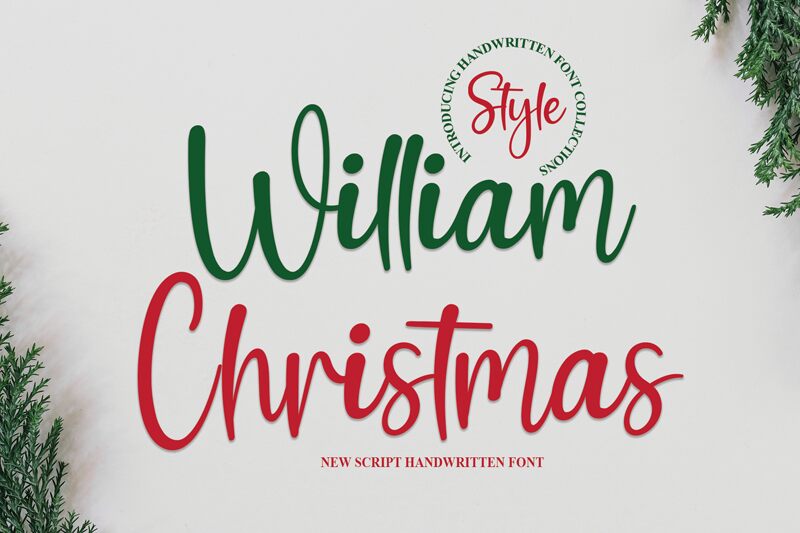
William Christmas
William Christmas font, a delightful creation by Scratchones, brings a playful and modern script to your design projects. This free handwritten font exudes a sense of friendly, approachable casual elegance with a personal touch and contemporary flair.
Ideal for branding, logos, stationery design, invitation cards, labels, packaging design, magazine covers, poster designs, social media posts or banners as well as various other digital or printed content. Also ideal for educational materials for children thanks to its cheerful round-cornered characters.